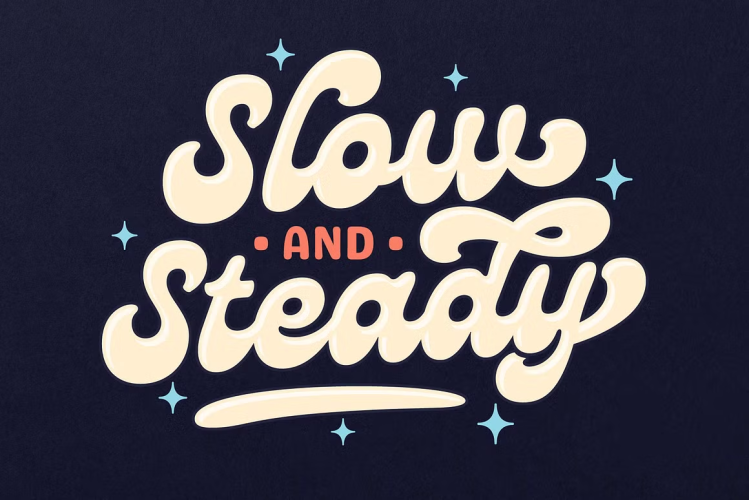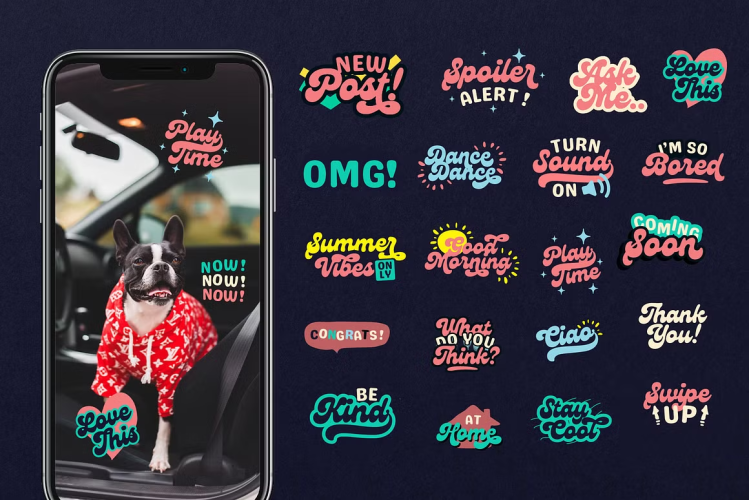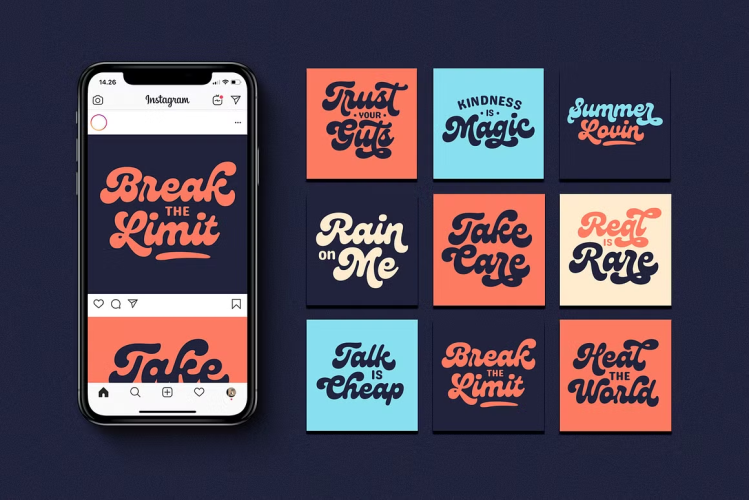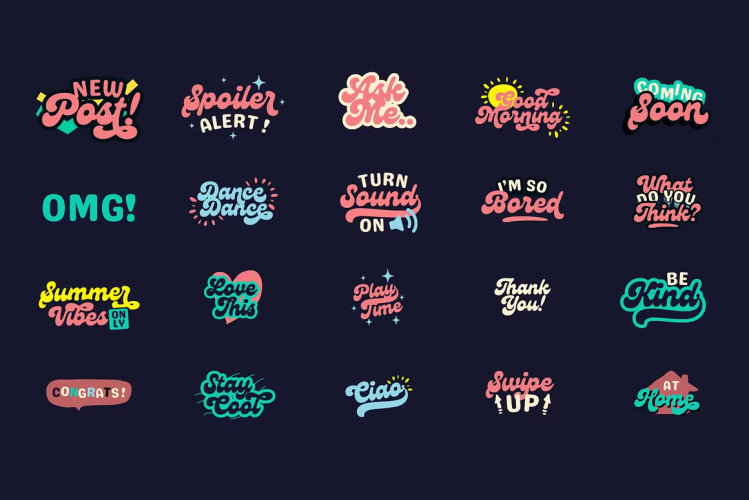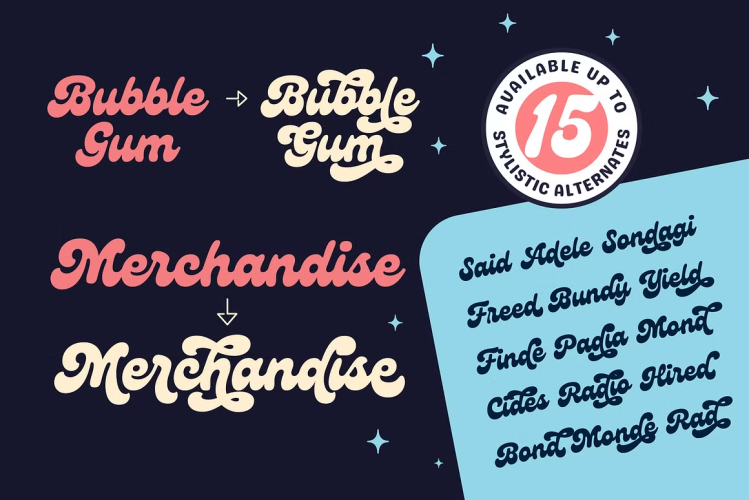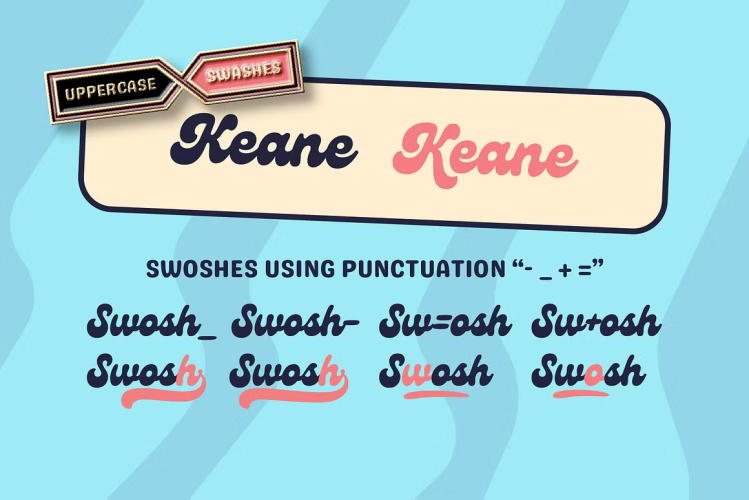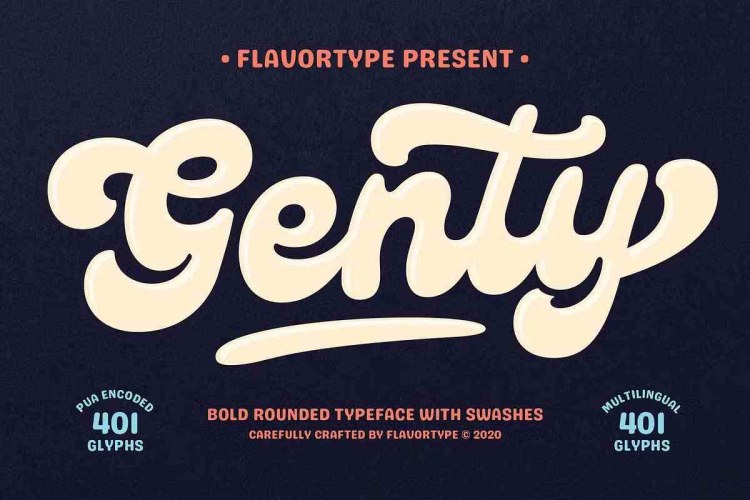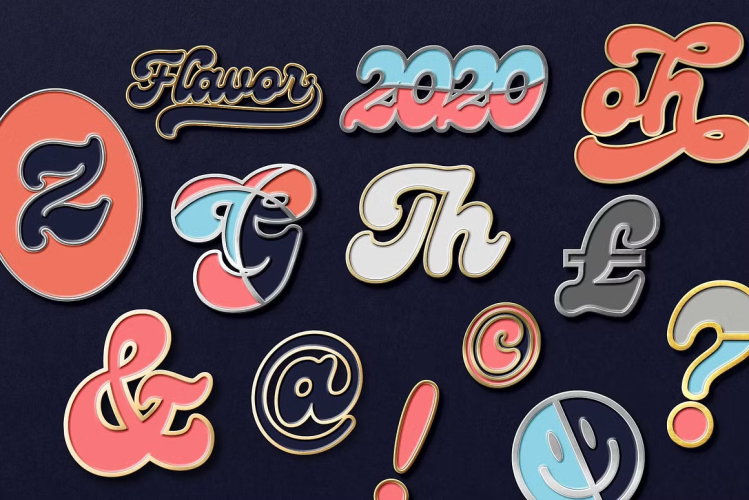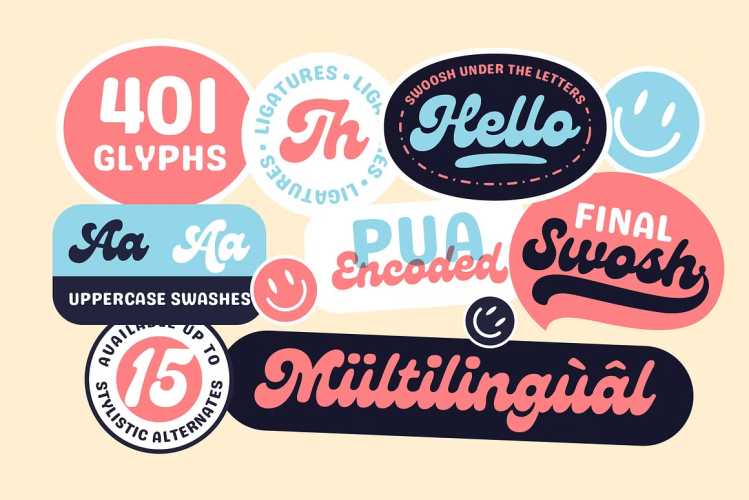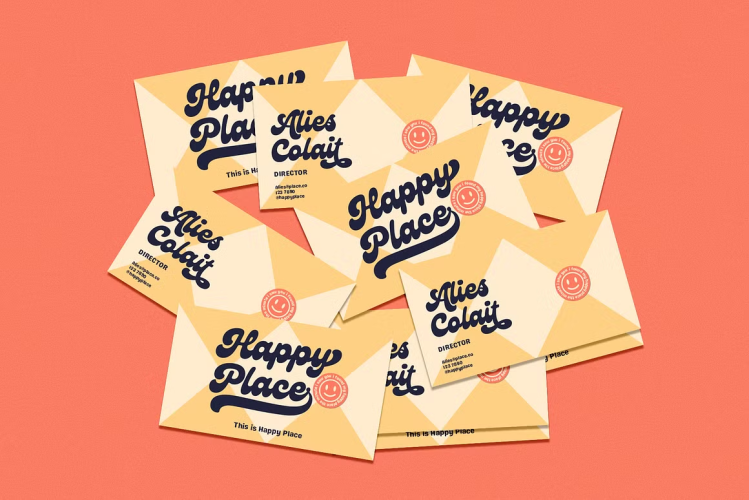
Genty Font
Meets Genty, A new carefully crafted Delightful Bold on a script typeface. A Creation of combining on our last 2 fonts is Budge and Glaw. It generates a lot more fun, more trendy and more vibrant. You get the Versatile, Fun, Cute and Beauty feel in Genty Typefaces.
Genty Created with a tons of opentype features. Beautiful swashes, contextual alternates, stylistic sets up to 15 alternates, ligatures, ascender & descender swashes, Uppercase swashes, swoosh under the letters and swoosh at the end of the letters.
Every glyphs for alternates are curated for the best and possible without eliminate characteristic of this fonts. Genty also comes with a Font Pair Sans Serif that completes the needs of your design.
Besides the features of the fonts, we are also including a bonus. Including Graphic Styles, Social Media Stickers, and Instagram Story Template. We’ve included the bonus with editable text, but Adobe Illustrator was required to edit that. Social Media Stickers and Instagram Story Templates comes with PNG transparent background, you can paste on your instagram story to made your story more alive.
Our creation on the display will give you a reference for what it looks like on your project, such as Branding, Header, Logotype, Poster, Magazine, Packaging, Food Menus, etc. It shows that Genty clearly can accommodate various design styles.
Genty Font is a Script And Handwritten font that brings a professional and versatile look to your projects. Meets Genty, A new carefully crafted Delightful Bold on a script typeface.